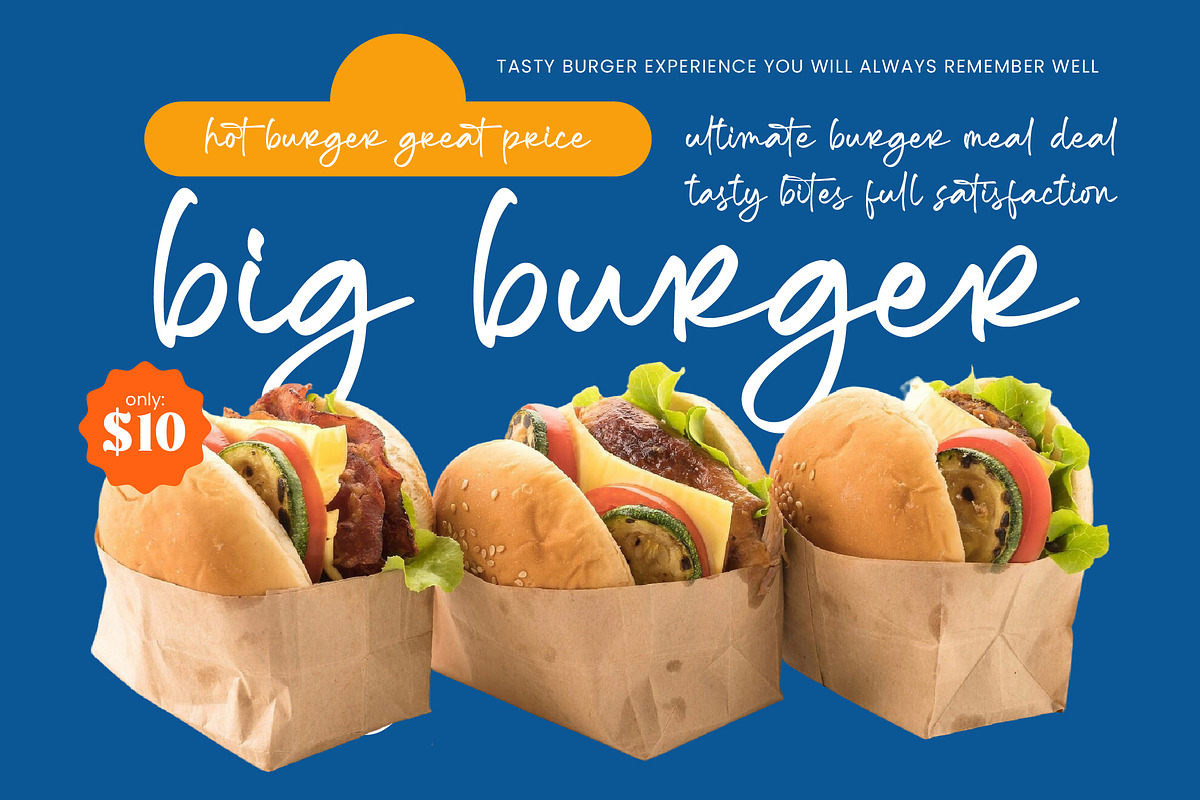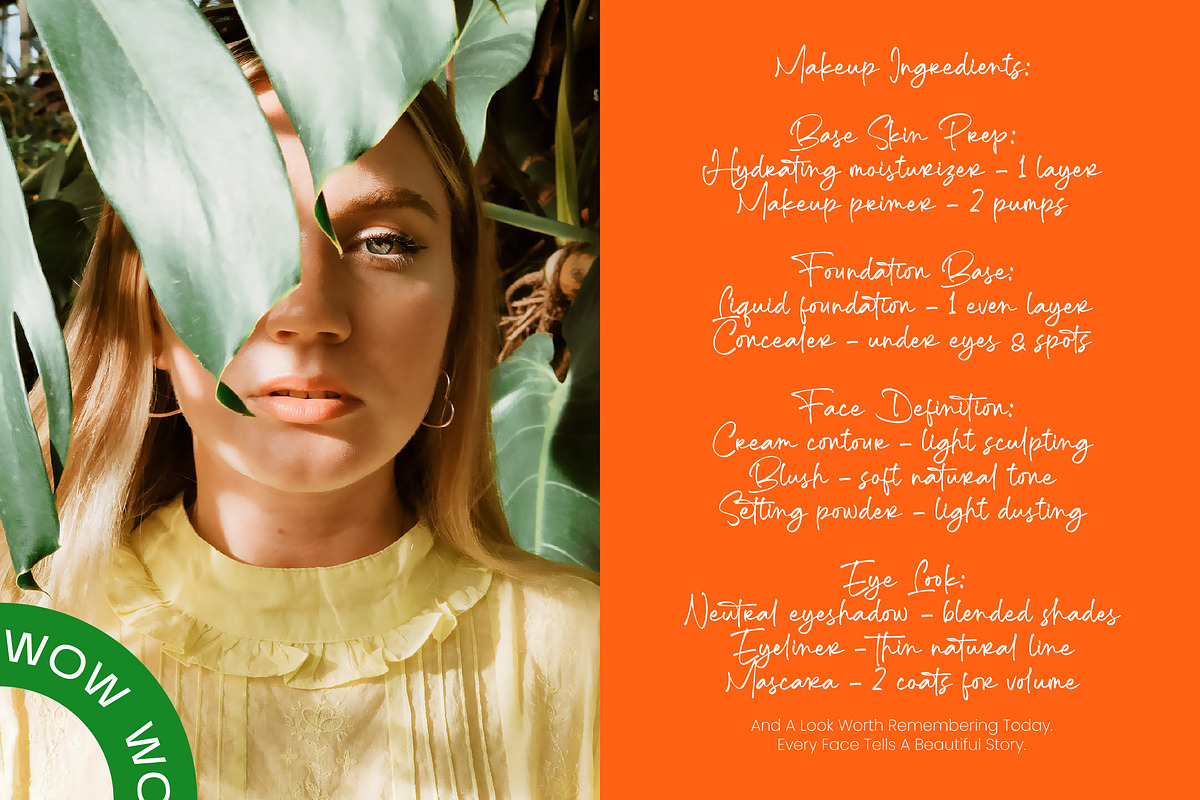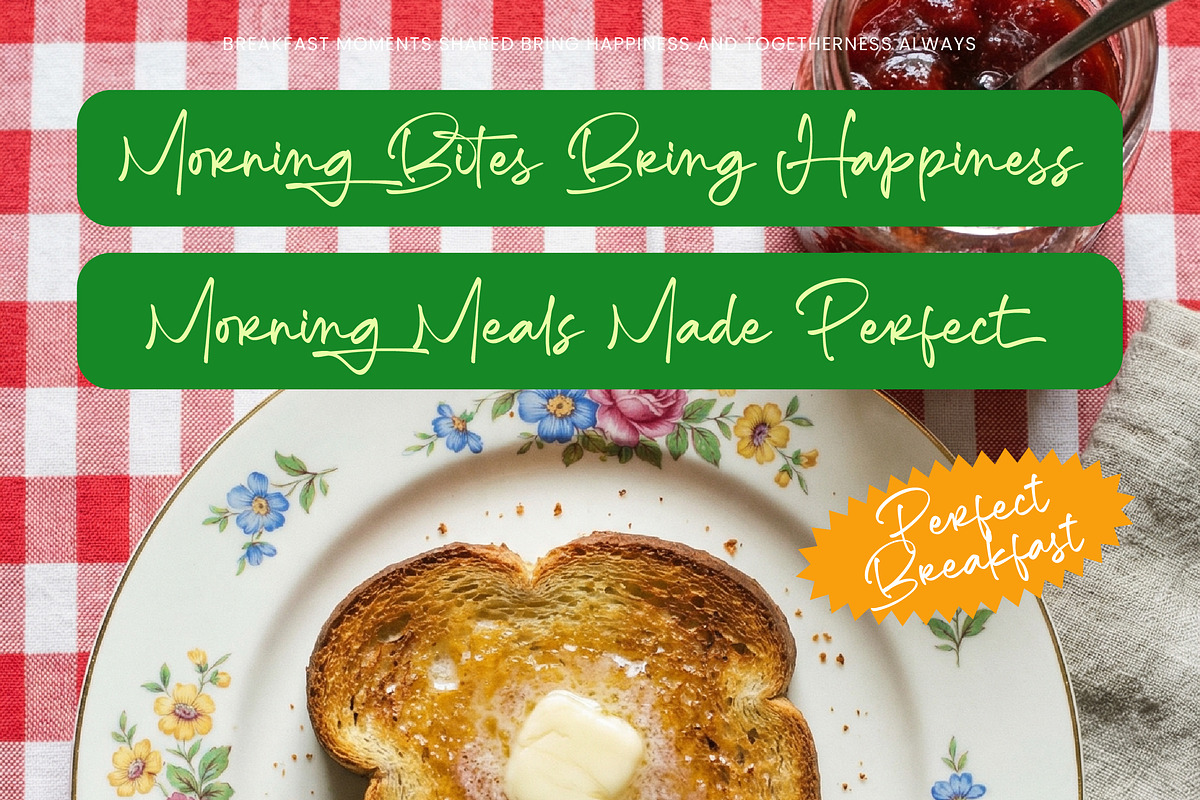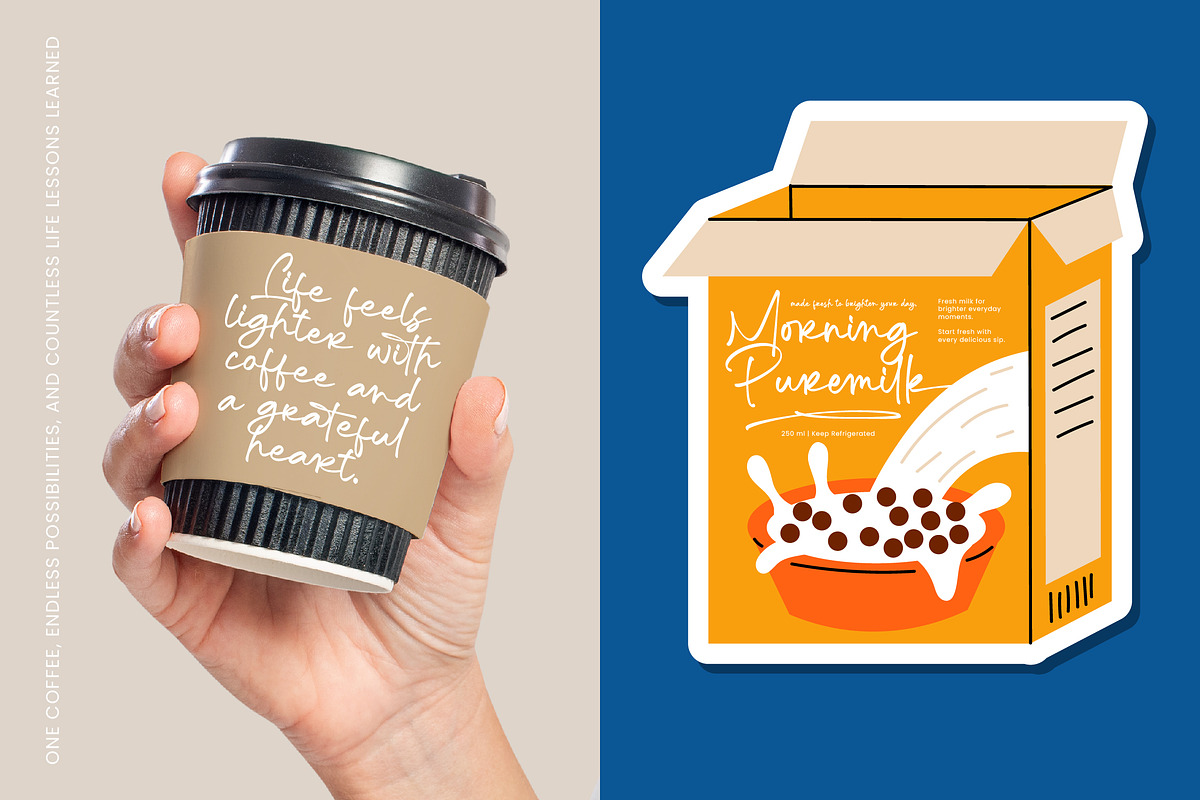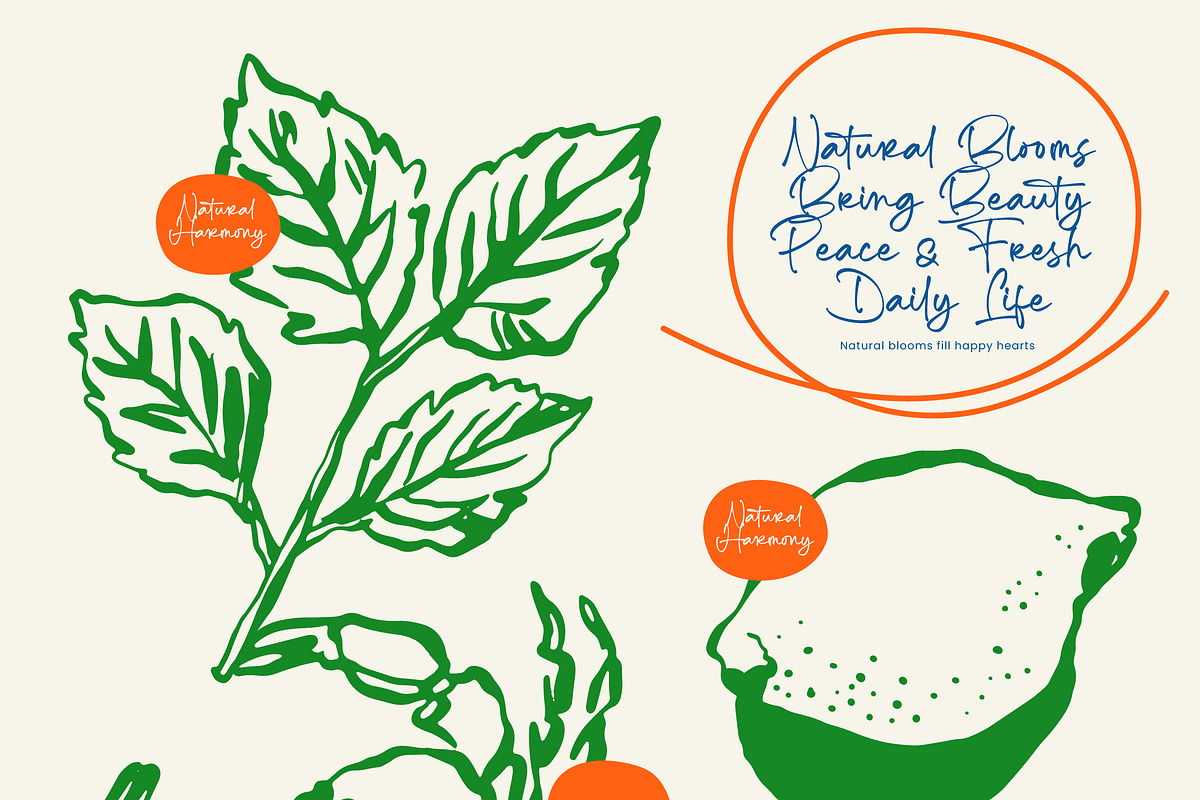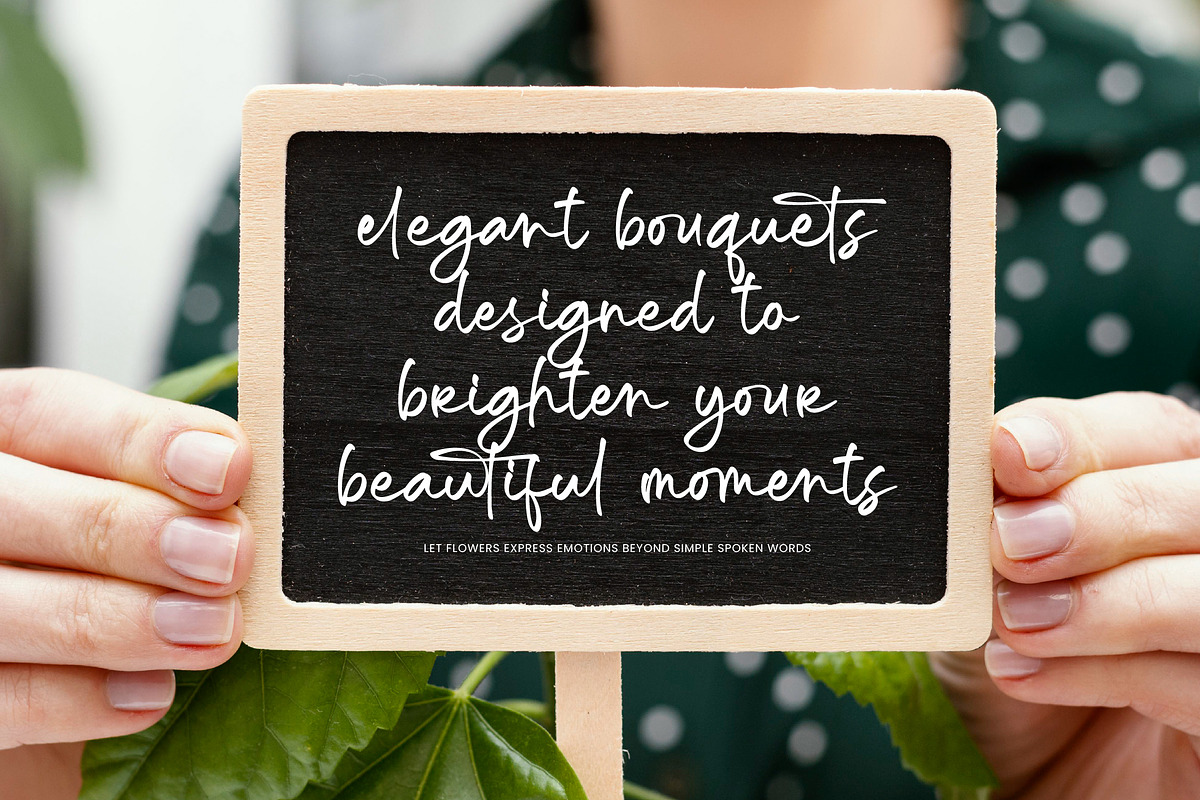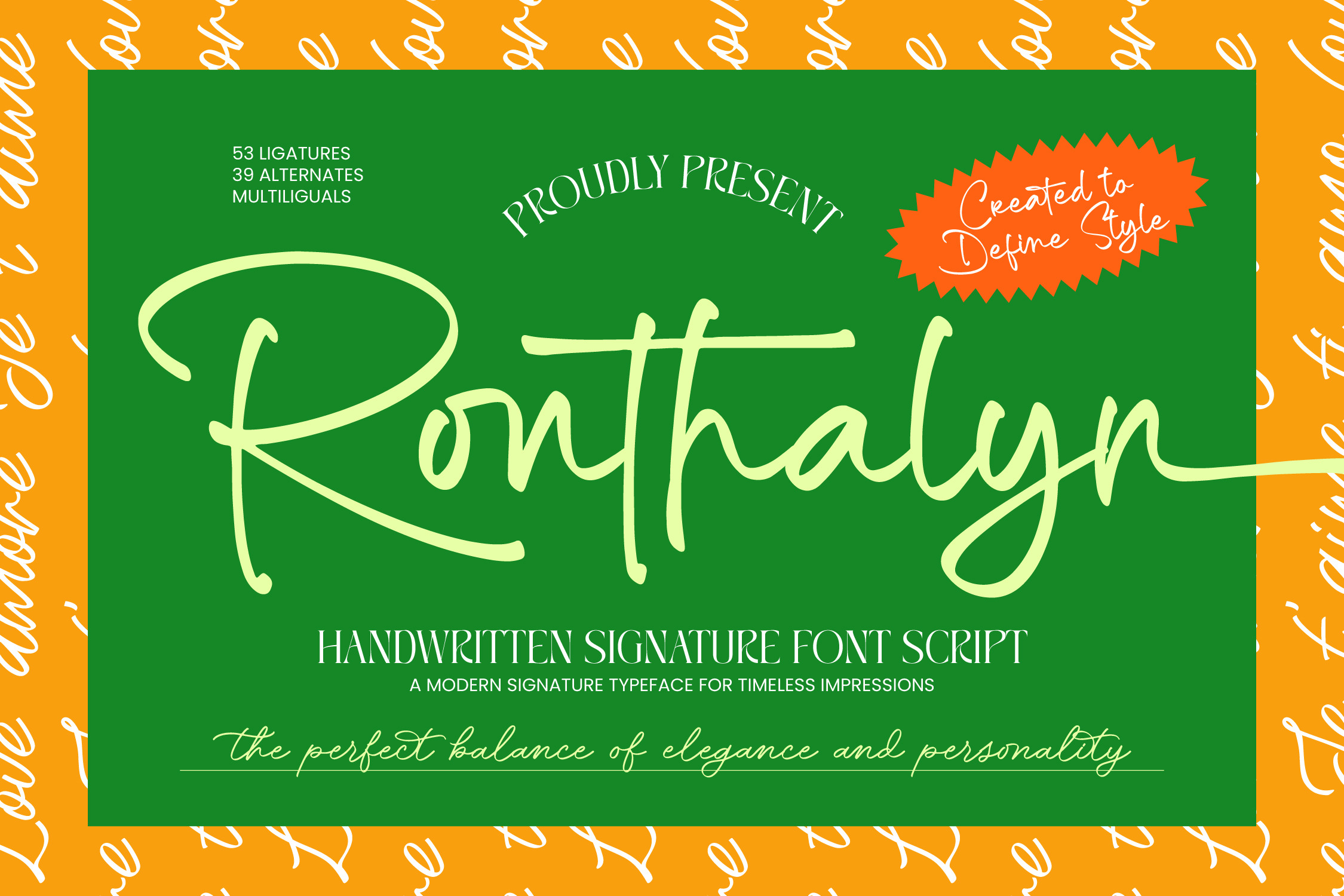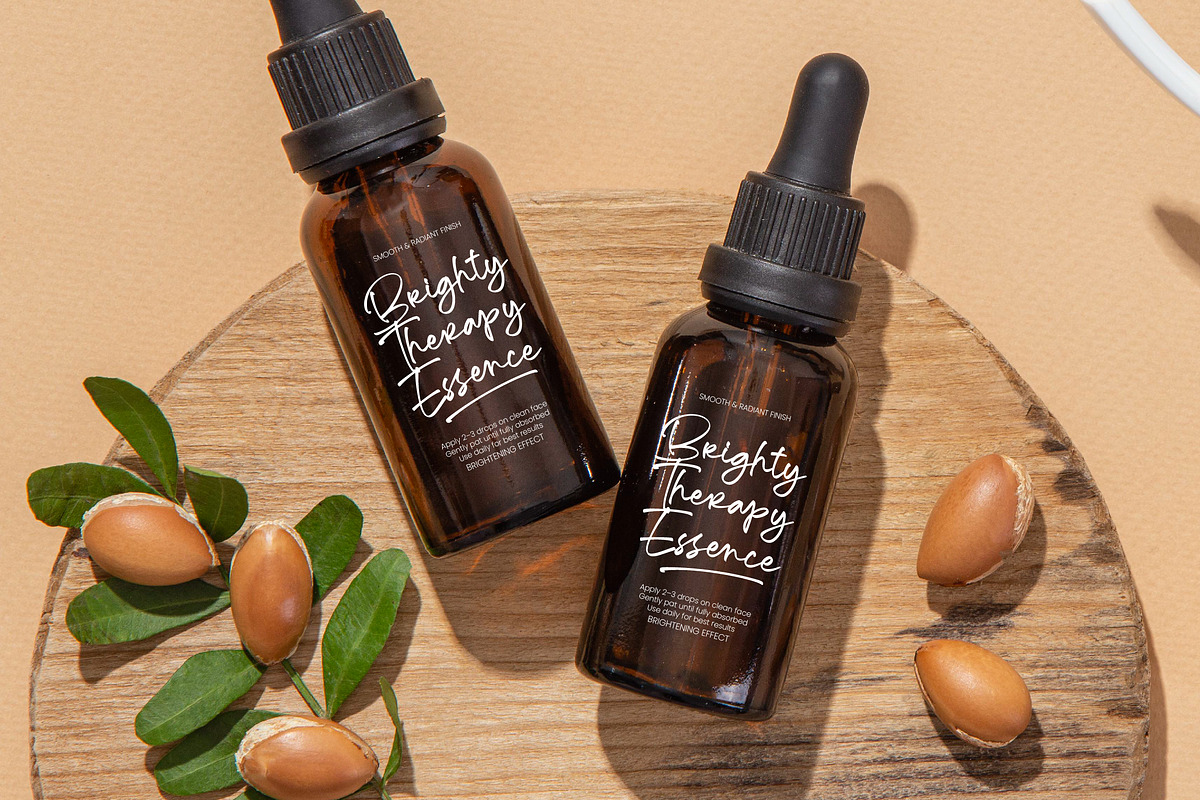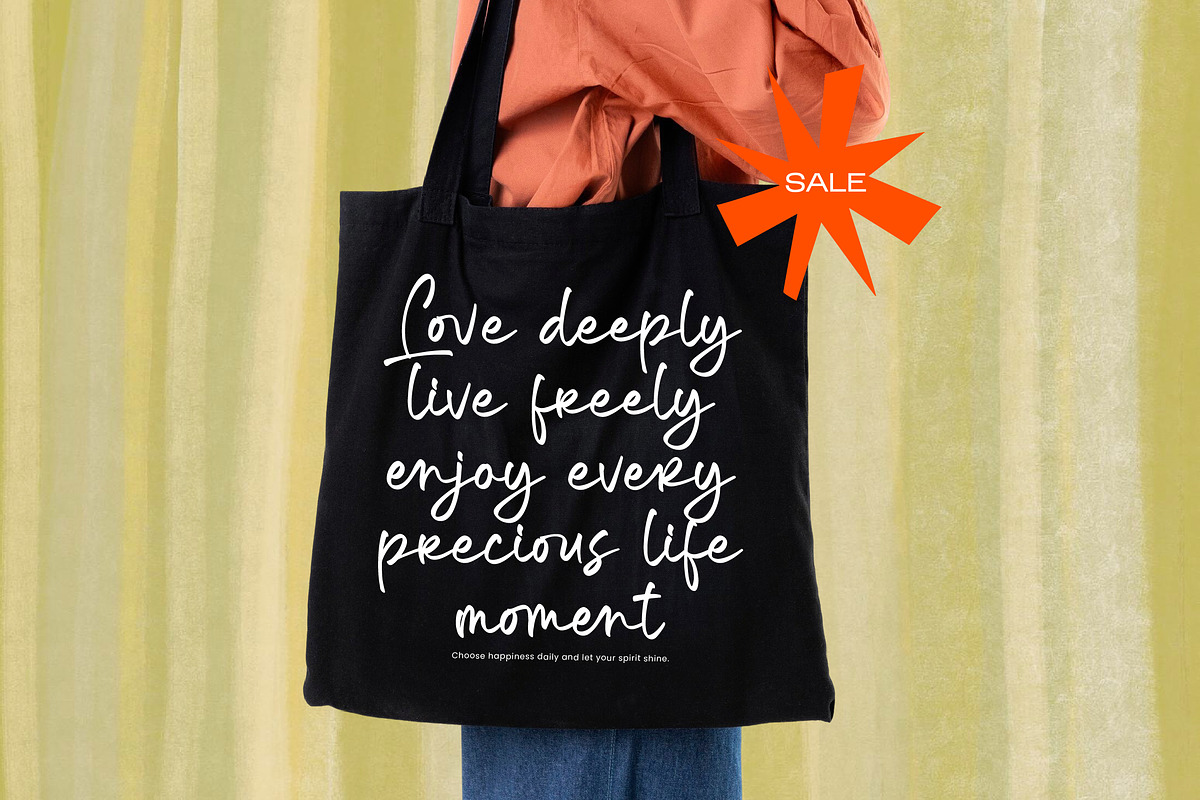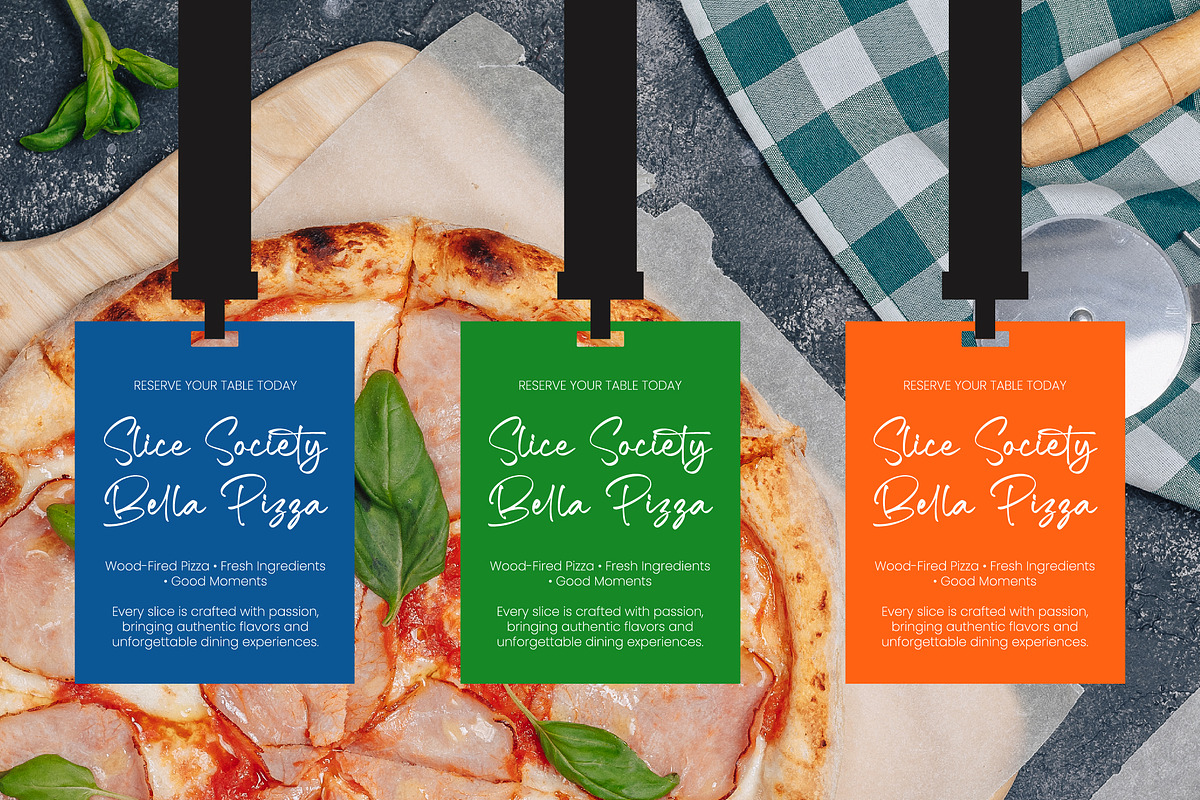
Ronthalyn Handwritten Signature Font
Ronthalyn - Handwritten Signature Font Script , Elevate your design identity with a touch of authentic sophistication and modern elegance. Ronthalyn - Handwritten Signature Font Script is a masterfully crafted typeface designed to provide a fluid motion and a natural, human touch to any project. Its organic strokes and graceful curves evoke a sense of bespoke craftsmanship, making it an essential asset for designers seeking to convey luxury and personality without compromise.
Unlock a world of creative possibilities with a rich array of typographic features including 53 custom ligatures and 39 stylistic alternates. These elements allow for a truly customized look, ensuring that every word looks like a genuine, hand-penned signature. With its extensive multilingual support, Ronthalyn - Handwritten Signature Font Script adapts seamlessly across global markets, making it incredibly versatile for international projects and diverse linguistic applications.
Perfect for high-end ventures, this typeface is the ultimate tool for visionary creators across multiple industries. Ronthalyn - Handwritten Signature Font Script is perfect for luxury branding, premium packaging, editorial design, and high-fashion identity. Whether utilized for elegant wedding invitations, professional photography watermarks, or boutique social media content, it delivers a consistent aesthetic that exudes class and refinement.
Transform your brand narrative with a signature style that leaves a timeless impression on your audience. Choosing Ronthalyn - Handwritten Signature Font Script means investing in a professional edge that balances artistic flair with commercial viability. This font is more than just a typeface; it is a definitive style statement that ensures your visual communications remain memorable, impactful, and stylistically superior in a competitive marketplace.